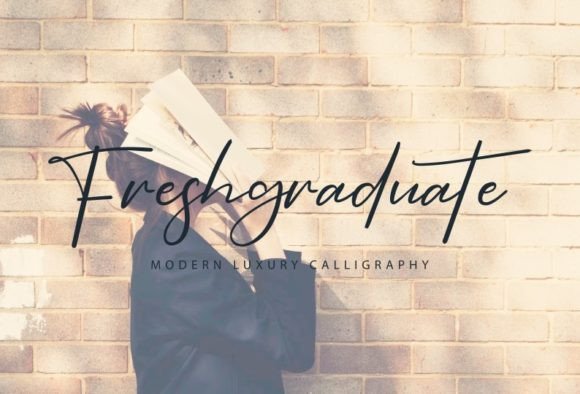
Introducing Freshgraduate Font, the epitome of elegance and creativity! Crafted with utmost passion by the talented Goodrichees, this script font is the perfect companion for anyone seeking to infuse their designs with a touch of whimsy and charm.
Unleash your imagination and explore the endless possibilities that Freshgraduate Font offers. Whether you're designing a captivating logo, crafting stunning wedding stationery, adding a unique watermark to your photography, or revamping your modern website, this font is your secret weapon to create unforgettable visuals.
With its mesmerizing handwritten style, Freshgraduate Font effortlessly captures the essence of timelessness. Each stroke exudes a sense of warmth and authenticity, instantly captivating the hearts of your audience. Say goodbye to dull and monotonous designs, as this font breathes life into your projects, making them truly one-of-a-kind.
Get ready to embark on a journey of creativity and inspiration. Freshgraduate Font allows you to effortlessly express your emotions and convey your message with flair. Its versatility and adaptability make it a must-have for designers, marketers, and entrepreneurs alike.
Captivate your audience with the sheer beauty of Freshgraduate Font. From eye-catching headlines to captivating captions, this font will make your words dance across the page, leaving a lasting impression on anyone who lays eyes on your creations.
Get ready to unleash your creativity and make a statement that will be remembered. Freshgraduate Font is your ticket to captivating designs that will leave a lasting impression. Elevate your projects to new heights and let your imagination soar with Freshgraduate Font – the best font for fun flyers and beyond!